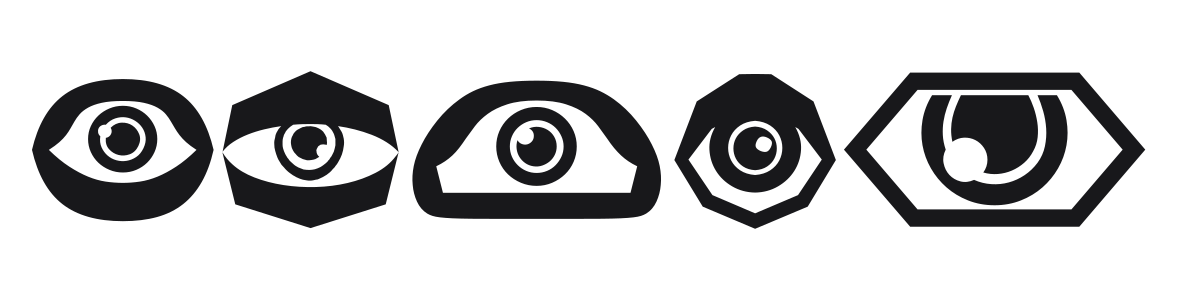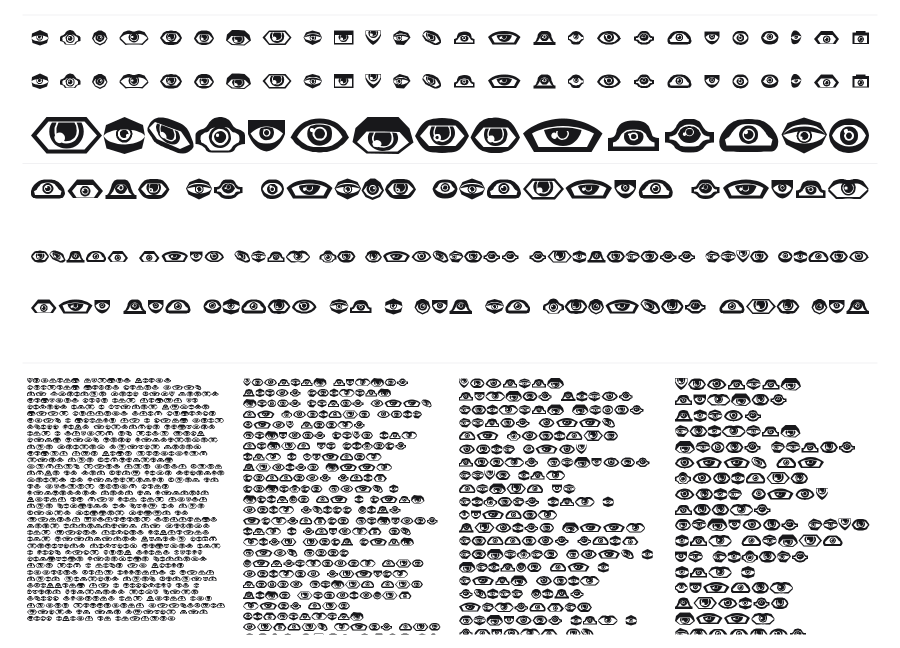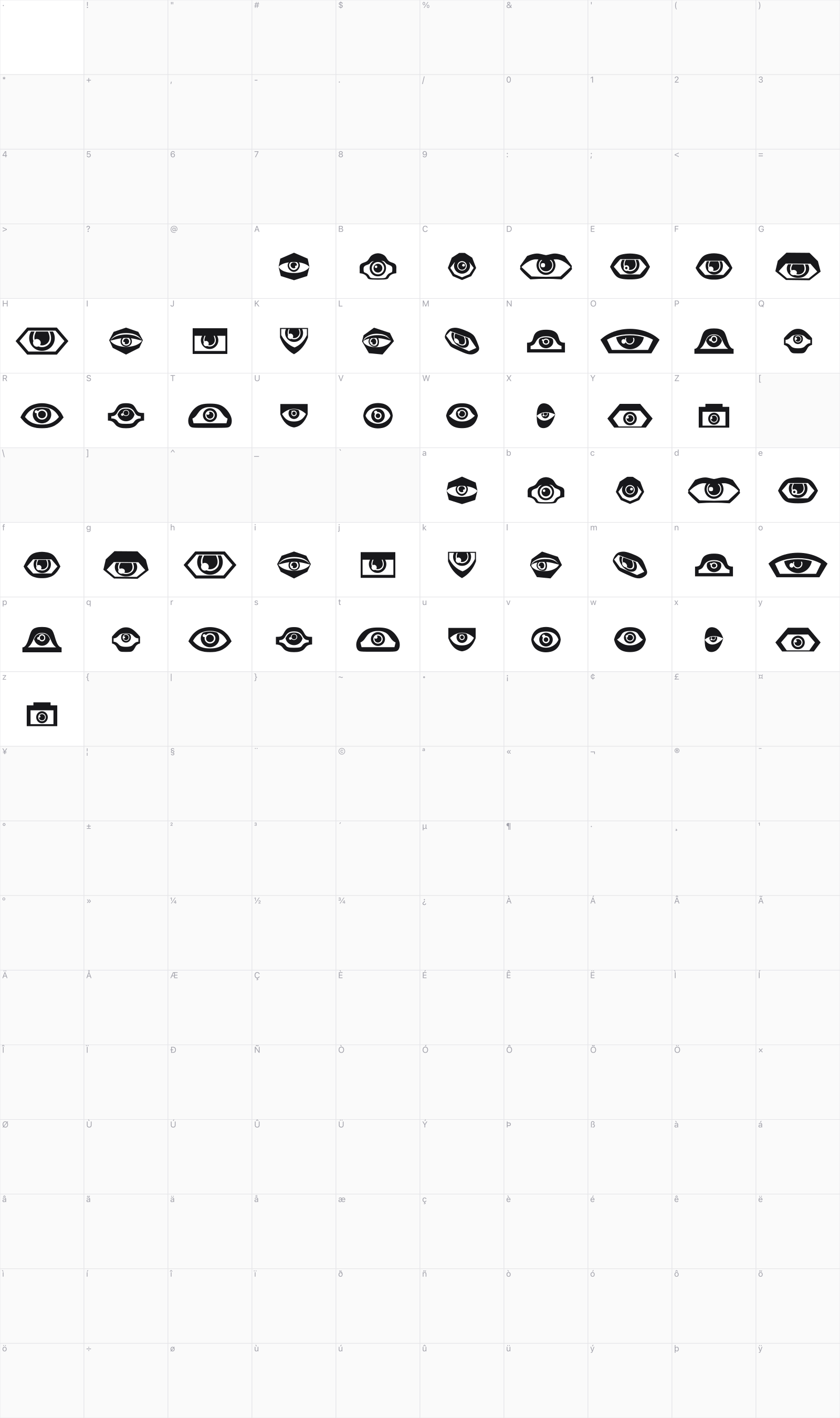
Watch
Watch is a dingbat font built entirely from stylized eye symbols, each glyph framing an iris and pupil inside a different geometric border. The collection spans hexagonal, oval, angular, and shield-like forms, giving designers a versatile set of watchful icons in a single font. It works naturally in horror, gaming, security, and occult-themed design contexts.